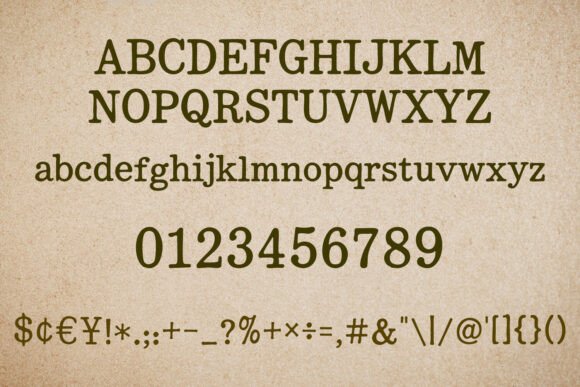
Timeless Typing: The Charm of Keyclack Font
Do you ever find yourself lost in the nostalgic world of old-school typing, the sound of metal keys clacking away as words flow onto the page? For many designers, there’s something undeniably captivating about the tactile feel of vintage typewriters.
That’s where the Keyclack Font comes in – a digital interpretation of the classic typing experience. This vintage typewriter-style font brings the authentic sound and feel of old-school typing into your digital designs, complete with a monospaced structure, bold serifs, and a slightly distressed ink texture.
For designers, the Keyclack Font offers a unique opportunity to add timeless character to their projects. Its versatility makes it perfect for a wide range of applications, from retro posters and editorial layouts to branding and book titles. Whether you’re looking to evoke a sense of nostalgia or simply add some mechanical flair to your designs, the Keyclack Font is an invaluable tool to have in your creative arsenal.
Keyclack Font Key Features
- Size: The font family consists of 5 font weights, ranging from Thin (100) to Extra Bold (800).
- Unique Characteristics: The font features a distinctive “clacking” sound effect when typing, inspired by vintage keyboard sounds.
- Font Width: Keyclack Font is a monospaced font, ensuring consistent spacing between characters.
Keyclack Font Review
Overall, I think the Keyclack Font has some great qualities that make it a compelling choice for digital designers.
- ✨ Keyclack’s unique, retro aesthetic is on point – it’s perfect for vintage-inspired or tech-related projects.
- ✨ The font’s clacking sound effect is a fun touch that can add an extra layer of interactivity to digital interfaces.
- ✨ Keyclack’s scalable design ensures it looks great on various devices and screen sizes.
- ⚠️ The font may be too loud or overwhelming for certain applications, such as text-heavy documents or formal websites.
- ⚠️ Some users may find the clacking sound effect annoying or distracting, especially in prolonged use.
- ⚠️ The font’s design can be a bit too playful for more serious or professional projects.
In conclusion, the Keyclack Font is a solid choice for designers looking for a unique, attention-grabbing font. While it may not be suitable for every project, its strengths make it a great fit for the right applications. With some thoughtful use, the Keyclack Font can add a fun, engaging touch to digital designs.
Tips: Use the Keyclack font to add a touch of nostalgia and retro charm to your designs.
The Keyclack font is perfect for:
- Retro-themed designs
- Neon signs and advertisements
- Video game-inspired designs
- Music festival and concert branding
Tips: Experiment with different font sizes and styles to achieve the desired effect.
Alternatives to Keyclack Font